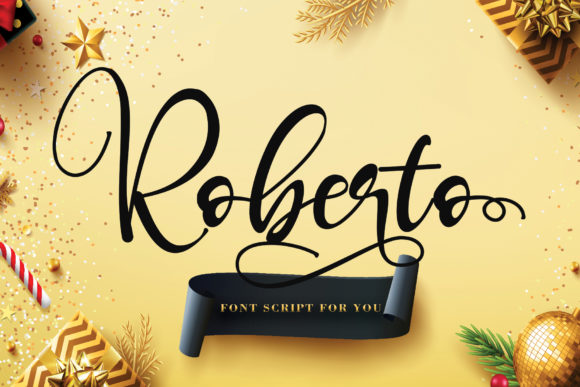
Roberto Font: The Fresh and Playful Calligraphy Font with a Heart
Are you looking for a font that can add a touch of playfulness and whimsy to your designs? Look no further than Roberto Font, a new and exciting calligraphy font that is sure to capture your audience’s attention. In this article, we’ll take a closer look at Roberto Font, its features, and how you can use it to elevate your designs.
What is Roberto Font?
Roberto Font is a modern calligraphy font that is designed to be fresh, funny, and cute. It’s a unique font that features hearts that can be connected, making it perfect for designs that require a touch of warmth and personality. Whether you’re creating greeting cards, branding materials, business cards, quotes, posters, or more, Roberto Font is an excellent choice.
Key Features of Roberto Font
- Fresh and Modern Design: Roberto Font has a modern and fresh design that is sure to stand out in any design project.
- Playful and Whimsical: The font features playful and whimsical hearts that can be connected, adding a touch of personality to your designs.
- Cute and Appealing: Roberto Font is designed to be cute and appealing, making it perfect for designs that require a touch of warmth and friendliness.
- Versatile: This font can be used for a wide range of design projects, including greeting cards, branding materials, business cards, quotes, posters, and more.
How to Use Roberto Font in Your Designs
Roberto Font is an incredibly versatile font that can be used in a wide range of design projects. Here are some ideas on how you can use Roberto Font in your designs:
Design Ideas with Roberto Font
- Greeting Cards: Use Roberto Font to create playful and whimsical greeting cards for special occasions such as birthdays, weddings, and holidays.
- Branding Materials: Add a touch of personality to your branding materials, such as logos, brochures, and flyers, with Roberto Font.
- Business Cards: Stand out from the crowd with Roberto Font on your business cards, making a great first impression on potential clients.
- Quotes and Posters: Use Roberto Font to create inspiring and eye-catching quotes and posters that will grab your audience’s attention.
Benefits of Using Roberto Font
There are many benefits to using Roberto Font in your designs. Here are some of the advantages of using this unique font:
Benefits of Roberto Font
- Unique and Eye-Catching: Roberto Font is a unique and eye-catching font that will make your designs stand out from the crowd.
- Playful and Whimsical: The font’s playful and whimsical design adds a touch of personality to your designs, making them more engaging and memorable.
- Easy to Read: Despite its playful design, Roberto Font is easy to read, making it perfect for body text and headings.
- Versatile: Roberto Font can be used for a wide range of design projects, making it a great addition to your font library.
Tips for Using Roberto Font Effectively
To get the most out of Roberto Font, here are some tips for using it effectively in your designs:
Tips for Using Roberto Font
- Use it Sparingly: While Roberto Font is a beautiful font, it’s best to use it sparingly to avoid overwhelming your design.
- Pair it with Other Fonts: Roberto Font pairs well with other fonts, so experiment with different combinations to find the perfect match for your design.
- Experiment with Colors: Roberto Font looks great in a variety of colors, so don’t be afraid to experiment with different colors to find the perfect match for your design.
- Pay Attention to Kerning: As with any font, pay attention to kerning to ensure that your text is evenly spaced and easy to read.
Roberto Font is a fresh, funny, and cute calligraphy font with hearts that can be connected. Its unique design makes it perfect for a wide range of design projects, from greeting cards to branding materials. With its playful and whimsical design, Roberto Font is sure to capture your audience’s attention and add a touch of personality to your designs. Whether you’re a designer, artist, or DIY enthusiast, Roberto Font is a great addition to your font library.